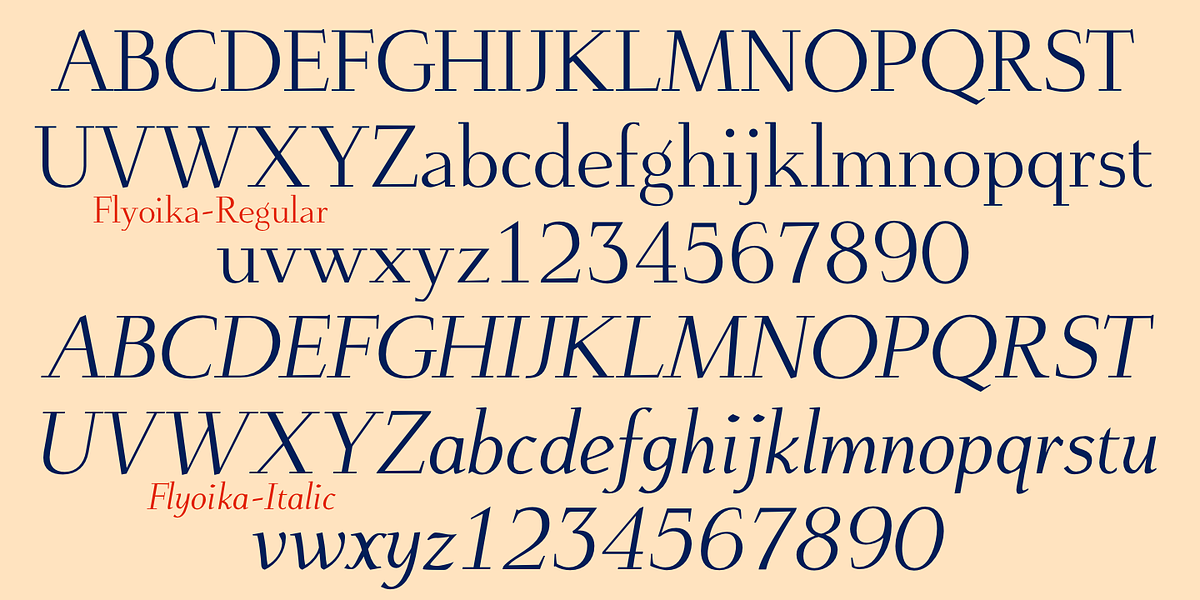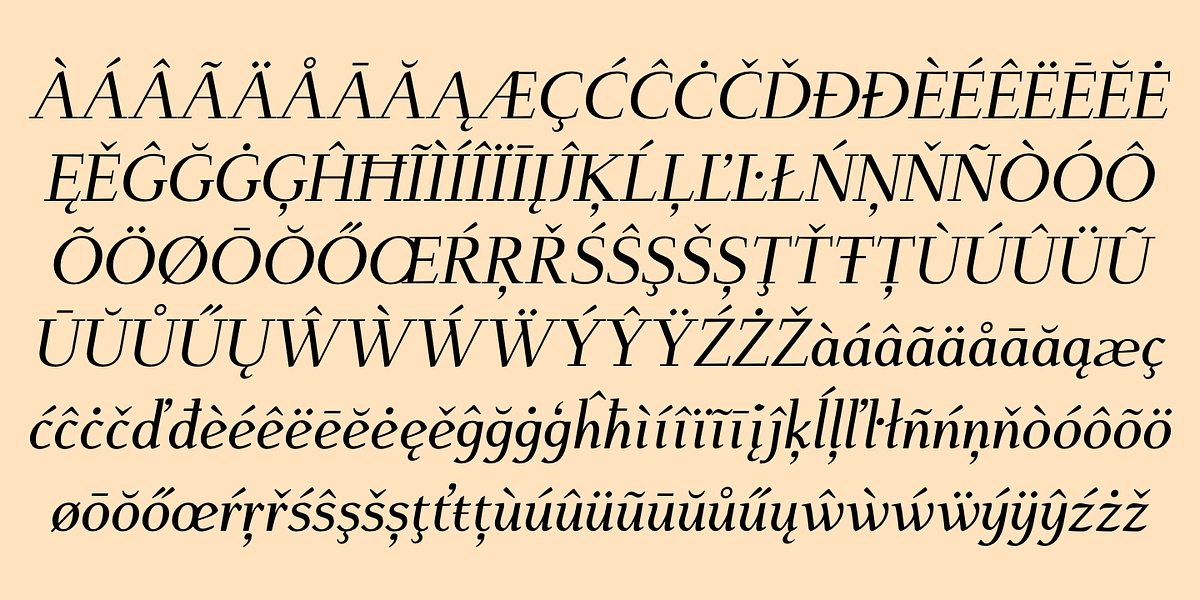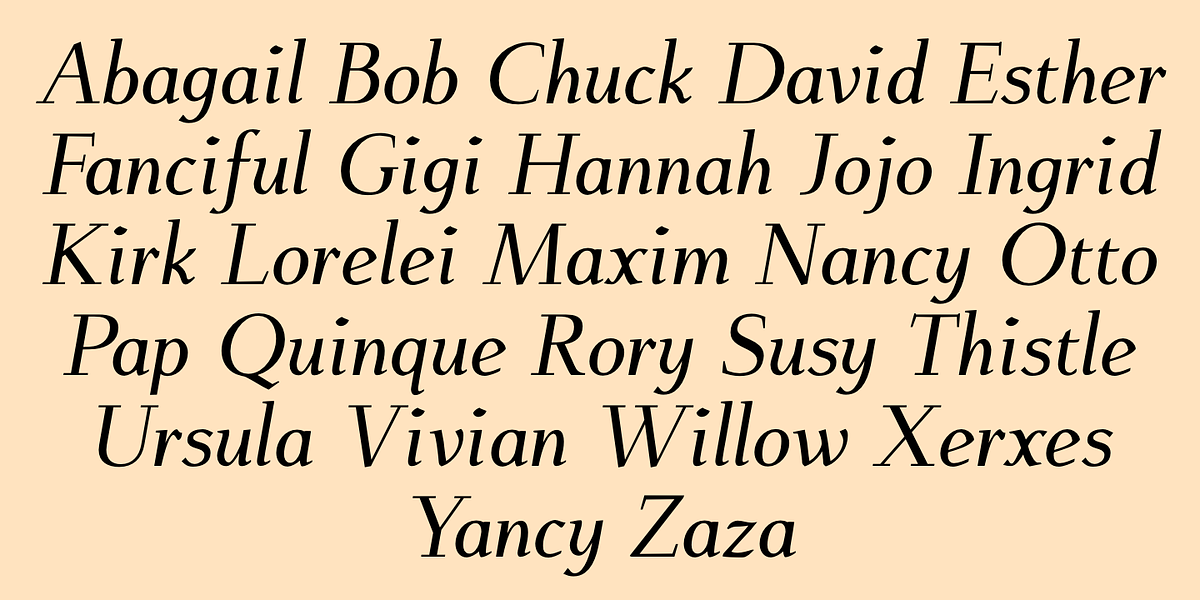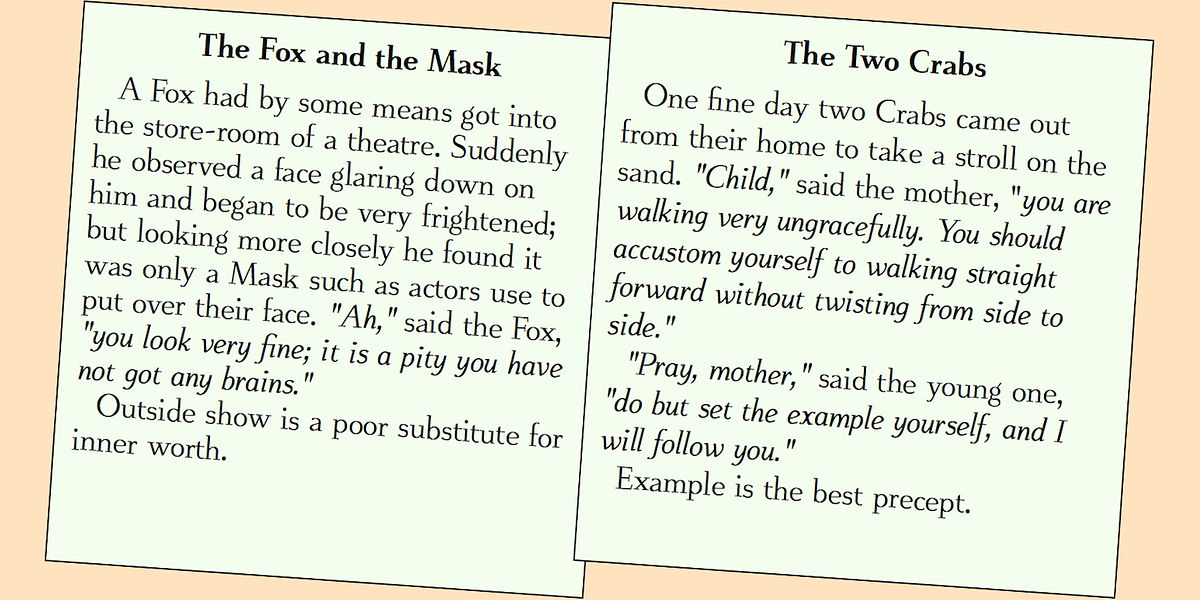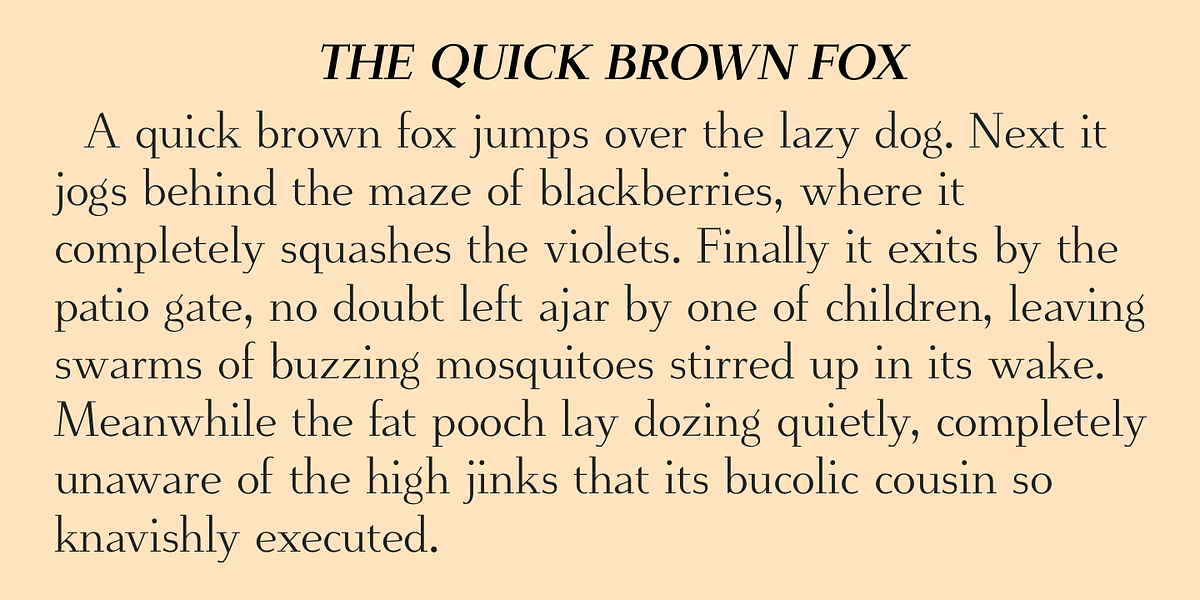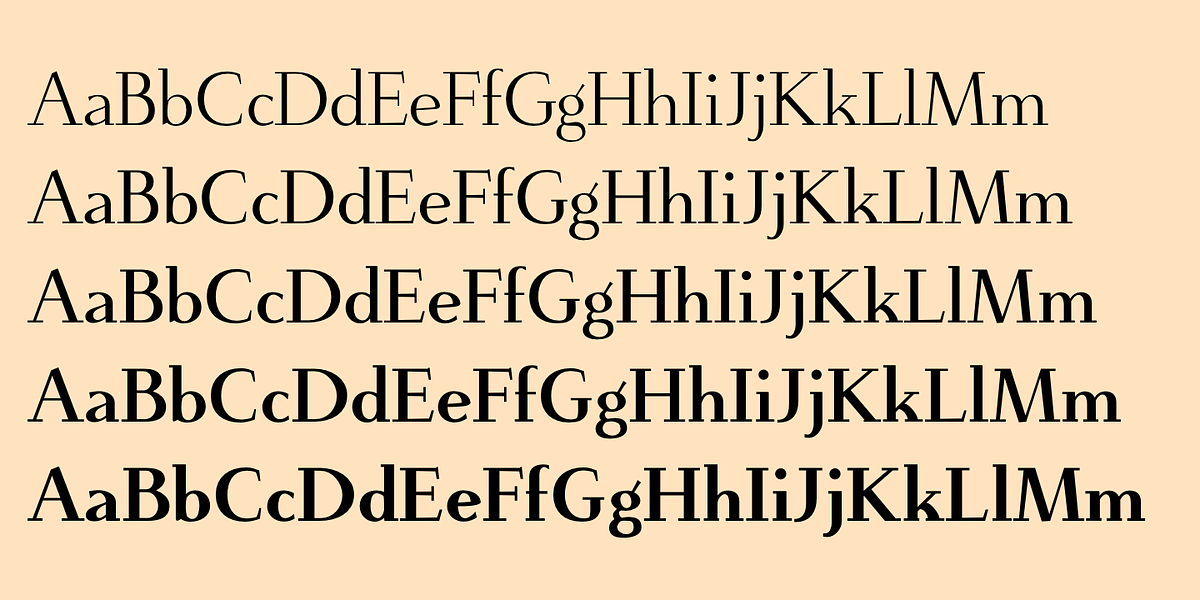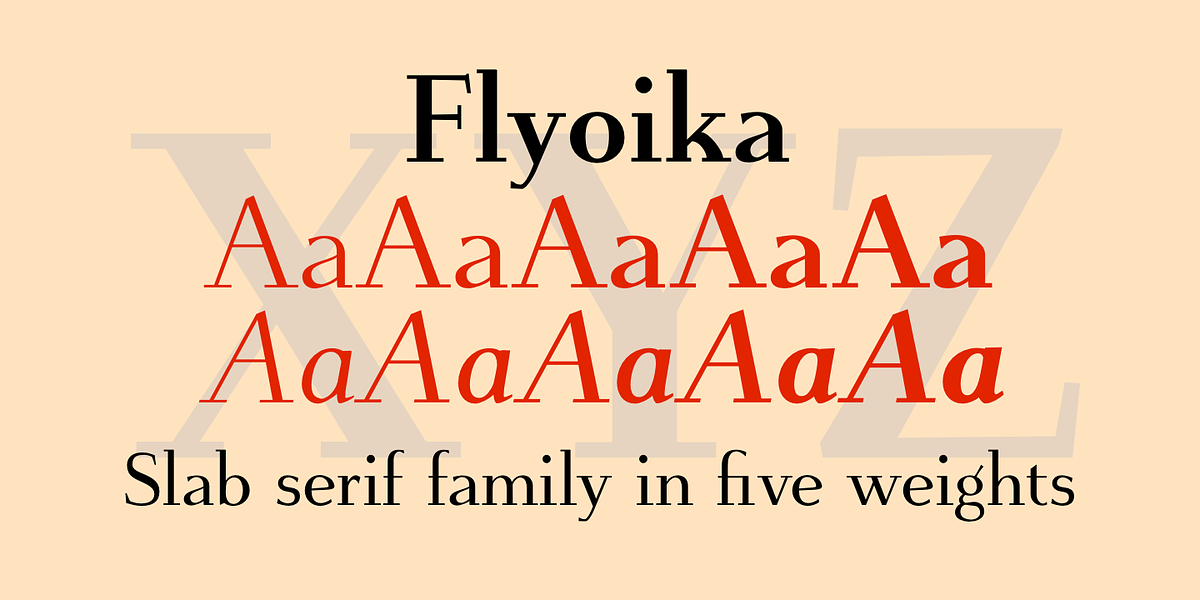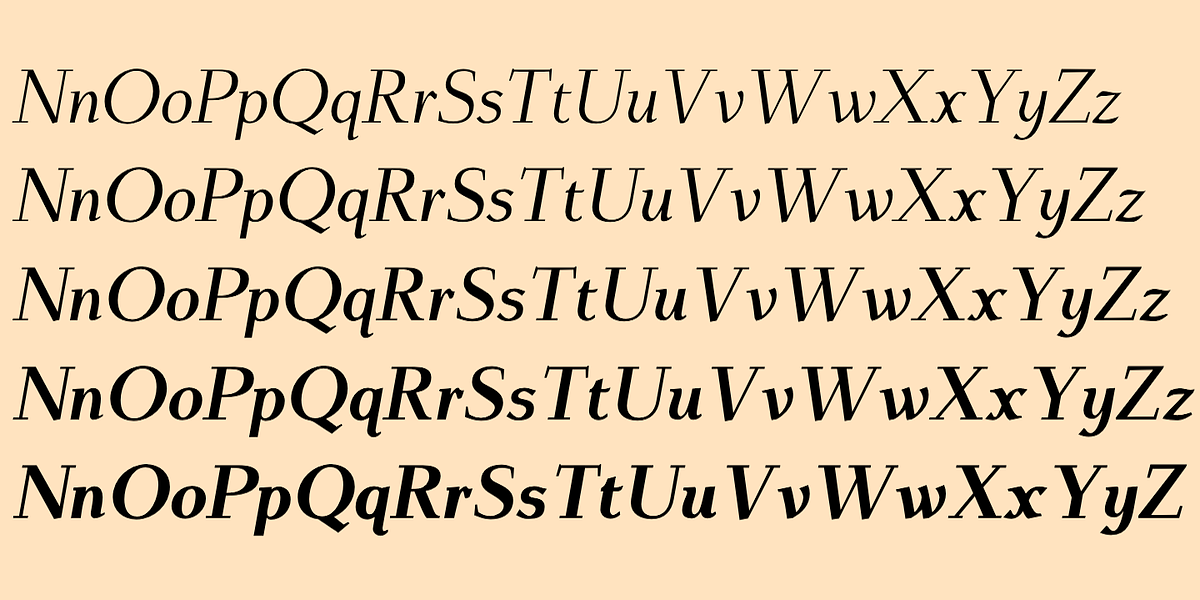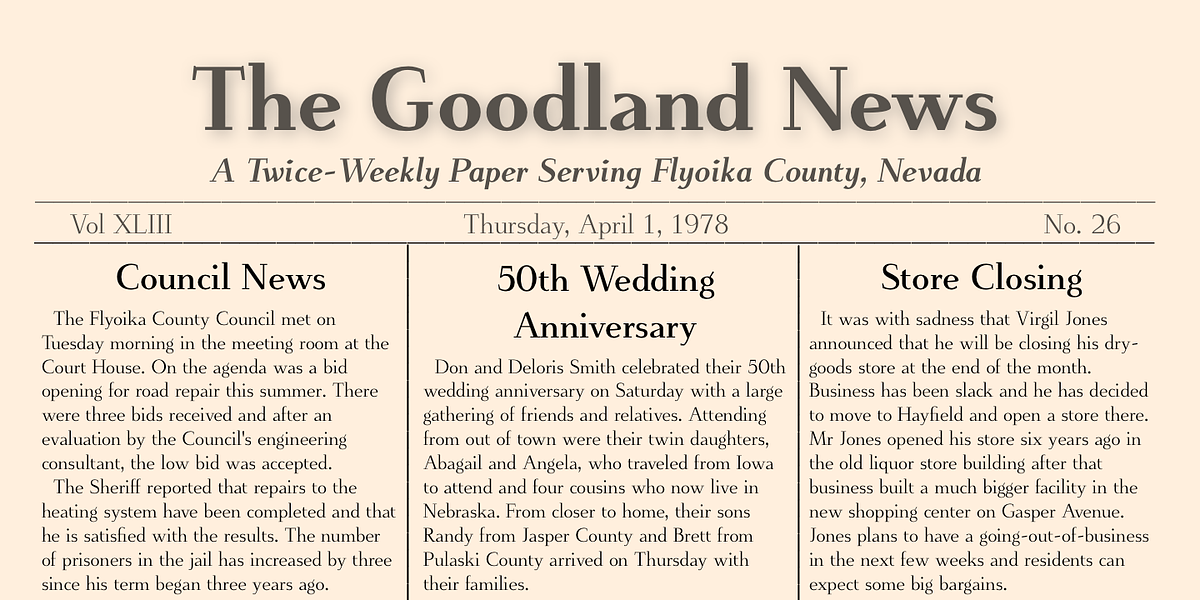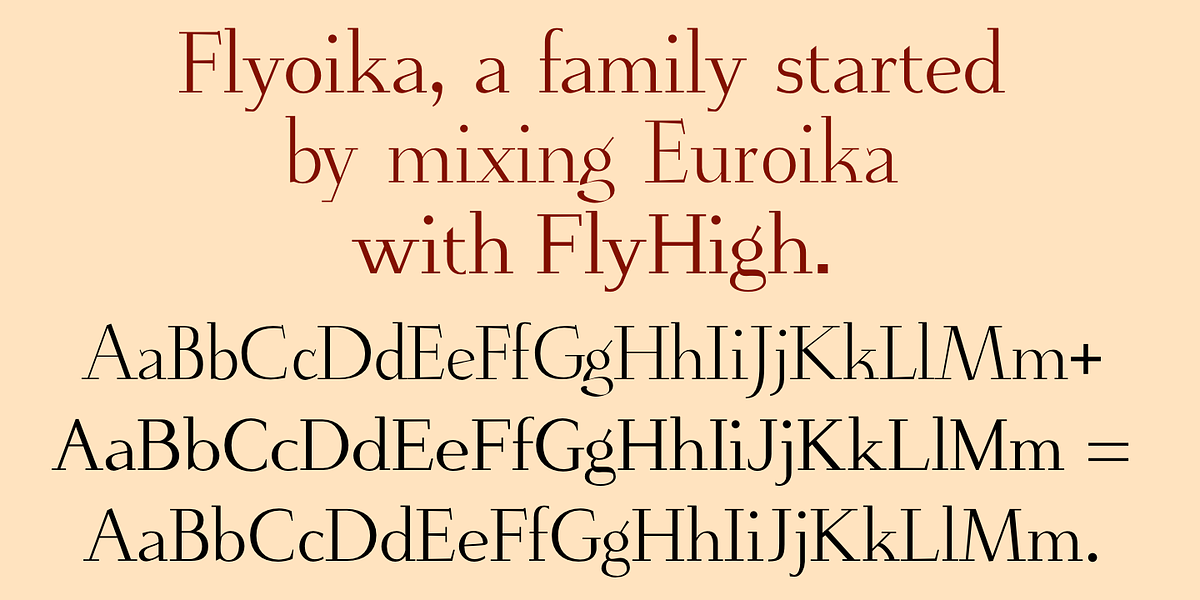
Flyoika
Flyoika is a slab serif font family designed as an experiment to blend the characteristics of two previously created slab serif fonts, FlyHigh and Euroika. The result is a five-weight typeface with distinct visual elements like long ascenders, a fairly low x-height, and noticeable contrast between thick and thin strokes. This versatility allows Flyoika to be effectively used for both display purposes and body text.